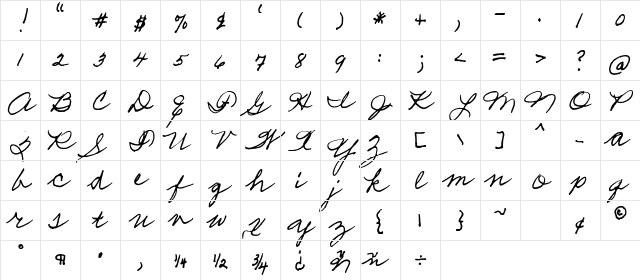
FG Freja Regular
Foundry: Font Garden
Designer: Font Garden
Design Context for FG Freja
FG Freja is a composed and adaptable typeface that performs quietly and consistently across a wide range of design contexts.